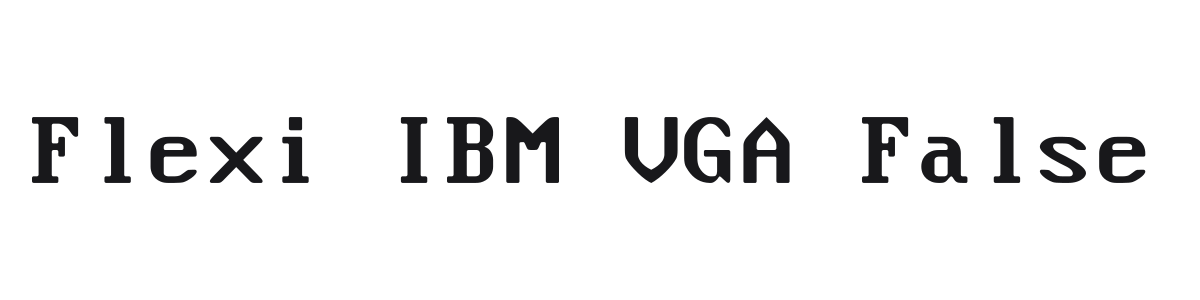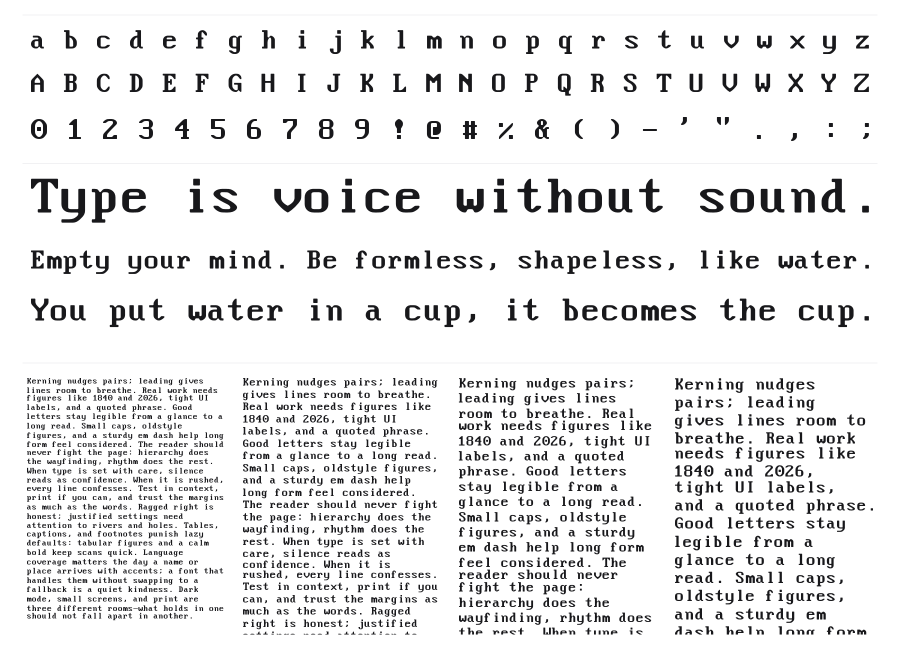
Flexi IBM VGA False
Flexi IBM VGA False is a TrueType revival of the classic IBM VGA character set, hand-converted from pixel-grid bitmaps into scalable outlines. The 'False' label means it preserves the original non-square pixel proportions of the VGA hardware, keeping the authentic DOS-screen look intact. It covers an extended character set including Cyrillic, Greek, Hebrew, and many Latin scripts.